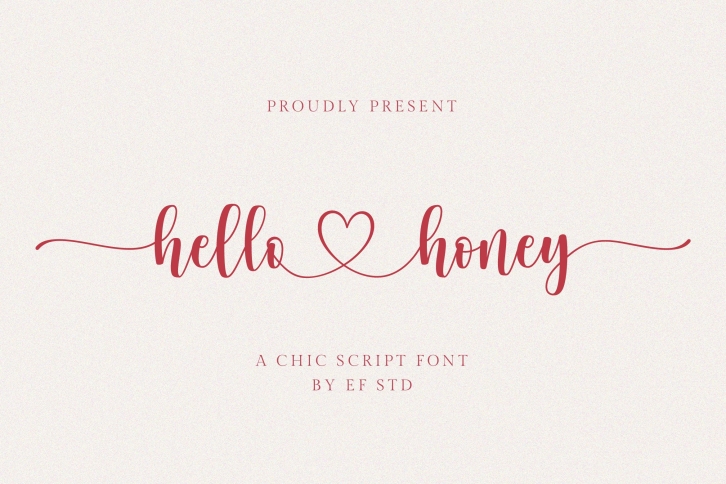
hello honey is a great font that was designed by Ef Studio. Imagine the amount of combinations you can create using this font! The archive is 18.15 MB and it was released on March 26, 2020. hello honey looks beautiful on wedding invitations, greeting cards, logos, posters, labels, t-shirt designs, logos, business cards and is perfect for use in ink or watercolor works, fashion, magazines, packaging and food menus, children's books and more!